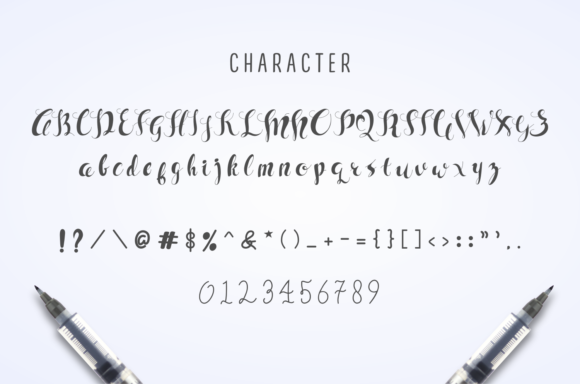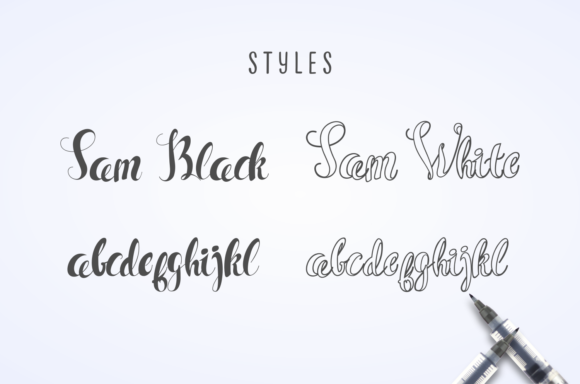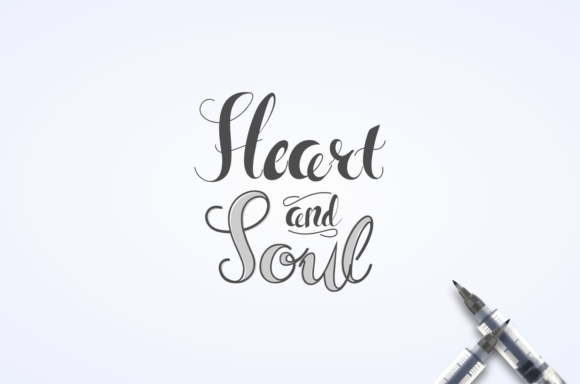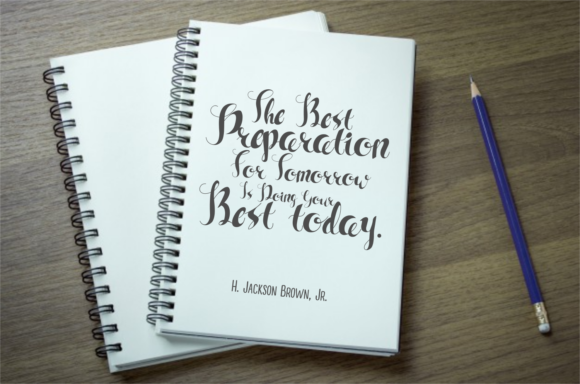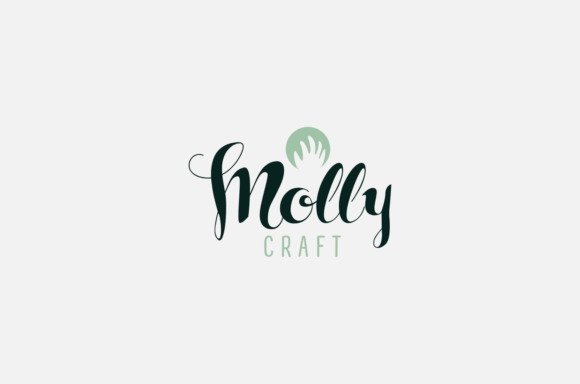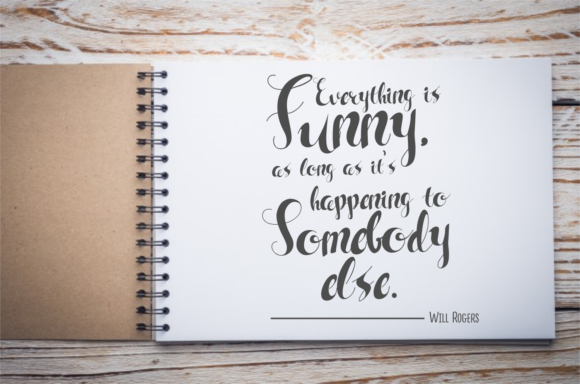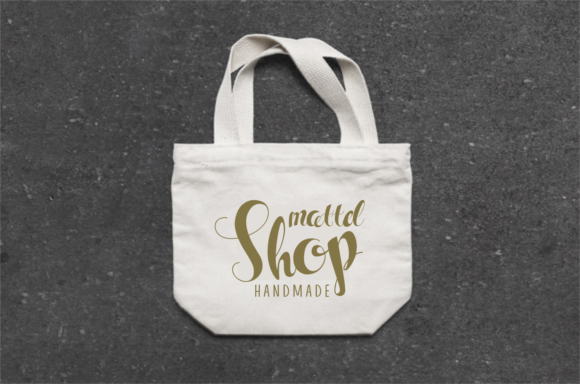
Sam Font
About Sam Font
The Sam is a beautiful handwritten script font. It has a striking, yet elegant style and is perfect for making any design stand out with an unique look.